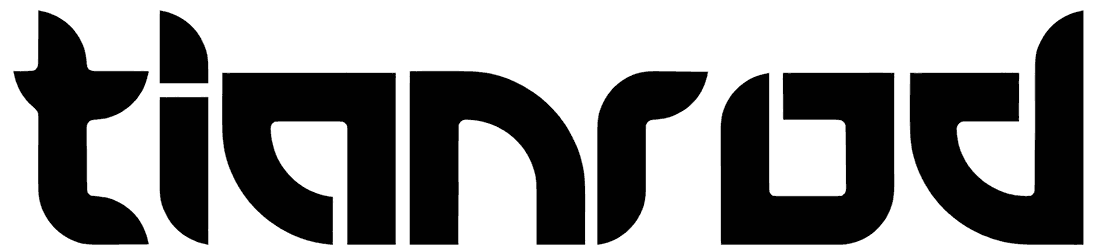
Tianrod can become one of the fonts that stay forever in your font library and are used in different projects. This gaming font does not include capital letters but offers you 2 styles of small letters that can play many roles in a project.
The minimalist appearance of this font can lead your designs in a new direction and add a new chapter to your resume in the design of posters and advertising writings.